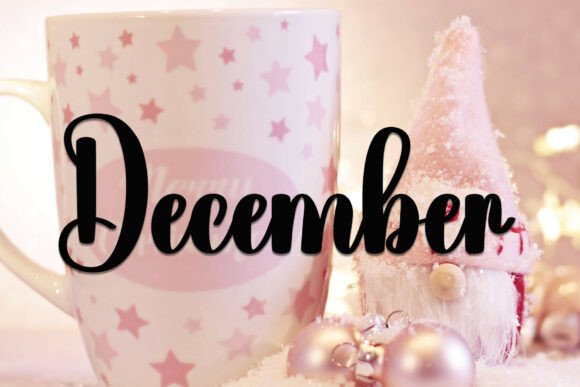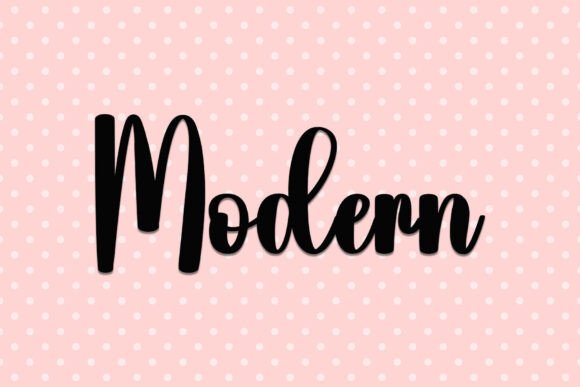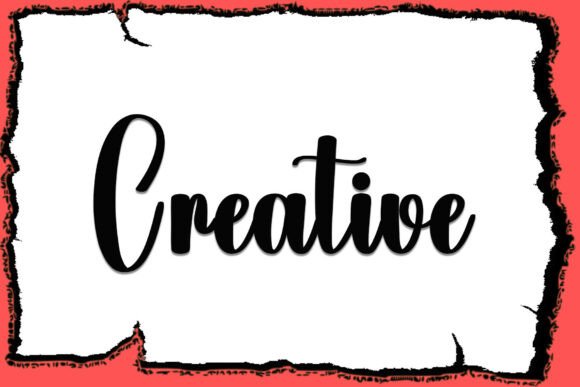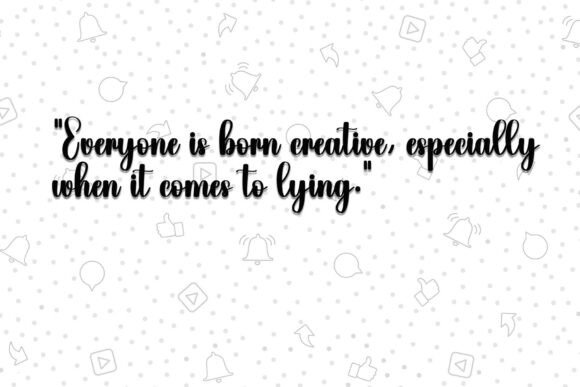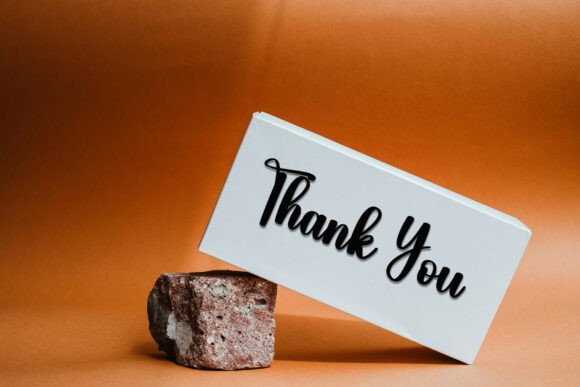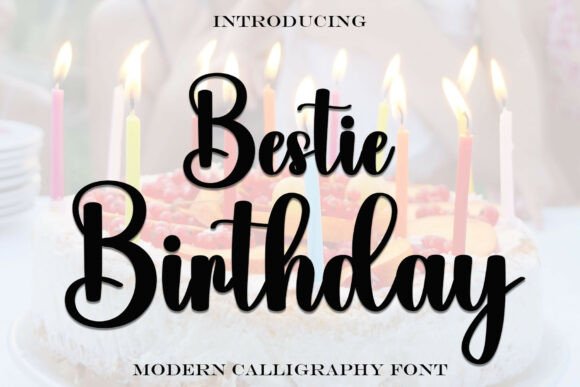
The Ultimate Celebration Font: Bestie Birthday
Imagine you’re working on a birthday project, and you want to add that special touch that makes it truly unforgettable. You’re scrolling through font after font, but nothing seems quite right. That’s when I discovered **Bestie Birthday**, a modern calligraphy font that instantly brought my design to life. In this article, we’ll dive into what makes Bestie Birthday so special, its features, and how you can use it to elevate your creative projects.
A Personal Design Moment: Finding the Perfect Font
I recall working on a client’s birthday party invitation. The theme was playful and elegant, and I needed a font that captured both vibes. After hours of searching, I stumbled upon Bestie Birthday. Its joyful swirls and elegant strokes immediately caught my eye. I knew right then and there that it was the perfect fit. The font added a personal, handwritten touch that made the invitation truly special.
An Honest Review of Bestie Birthday
- ✨ Playful yet Elegant: Bestie Birthday strikes the perfect balance between playfulness and sophistication, making it ideal for various design projects.
- ✅ Smooth Curves and Ligatures: The font’s smooth curves and beautiful ligatures give text a natural flow that’s both modern and timeless.
- 💫 Versatility: From social media graphics to printable art, custom t-shirts, and brand logos, Bestie Birthday adds instant character to every project.
While Bestie Birthday is an amazing font, there are a few things to keep in mind:
- ⚠️ Legibility at Small Sizes: Like many script fonts, Bestie Birthday may lose some legibility when used at very small sizes. It’s best used at larger sizes where its details can shine.
The Designer Inspiration Behind Bestie Birthday
Bestie Birthday was designed with the intention of capturing the essence of celebration and friendship. The designer aimed to create a font that felt both modern and timeless, perfect for commemorating special moments. Inspired by the joy and warmth of birthday celebrations, Bestie Birthday brings a touch of elegance and playfulness to any design.
Q: What makes Bestie Birthday unique?
A: Bestie Birthday stands out due to its perfect blend of playful swirls and elegant strokes, making it ideal for designs that require a touch of sophistication and fun.
Q: Is Bestie Birthday difficult to read at small sizes?
A: Like many script fonts, Bestie Birthday may lose legibility at very small sizes. It’s recommended to use it at larger sizes to fully appreciate its beauty and details.
Bestie Birthday is more than just a font; it’s a way to add a personal, celebratory touch to your designs. Whether you’re creating invitations, birthday cards, or social media graphics, this modern calligraphy font is sure to make your projects stand out. With its smooth curves, elegant strokes, and joyful vibe, Bestie Birthday brings a touch of magic to every word.